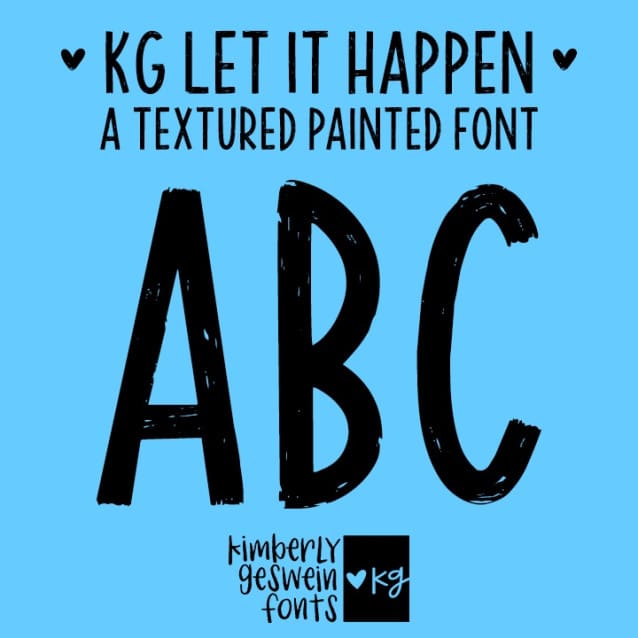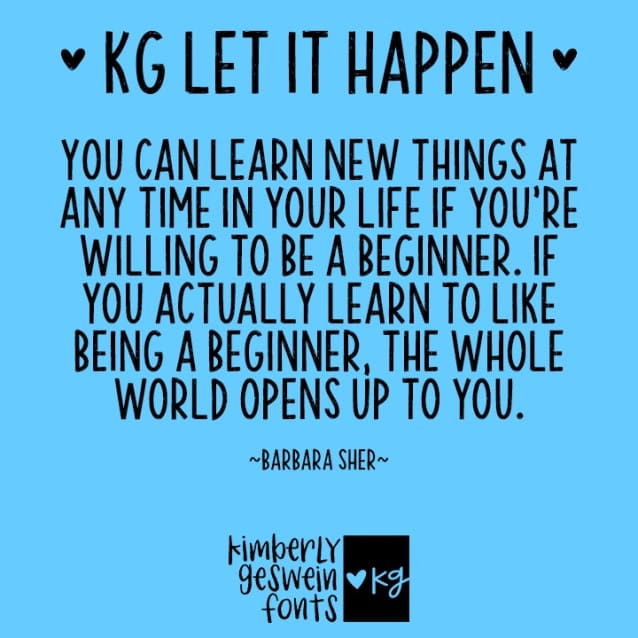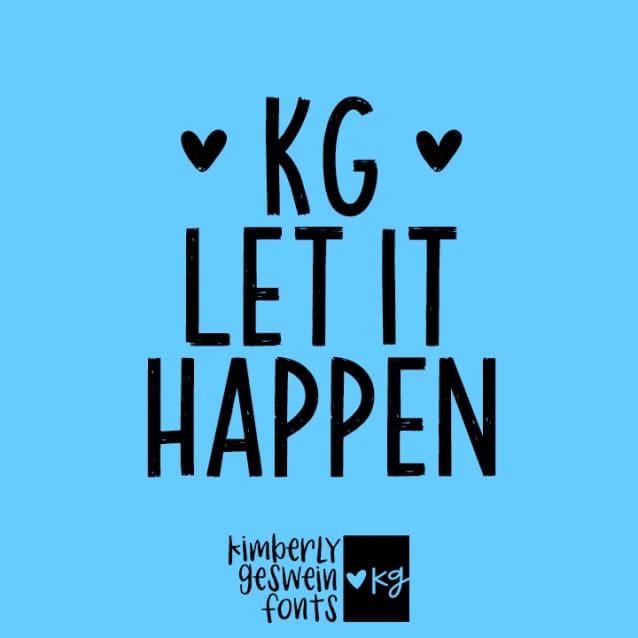
KG Let It Happen Font
KG Let It Happen Font is a fun brush lettered font with lots of texture. You’ll really appreciate the broad paintbrush texture when you use the font at large enough size to fully enjoy those details. At smaller sizes, the font functions as a nice unicase all caps font. At larger sizes, you’ll find this font mimics the look of a bold wide paint brush used for sign lettering.